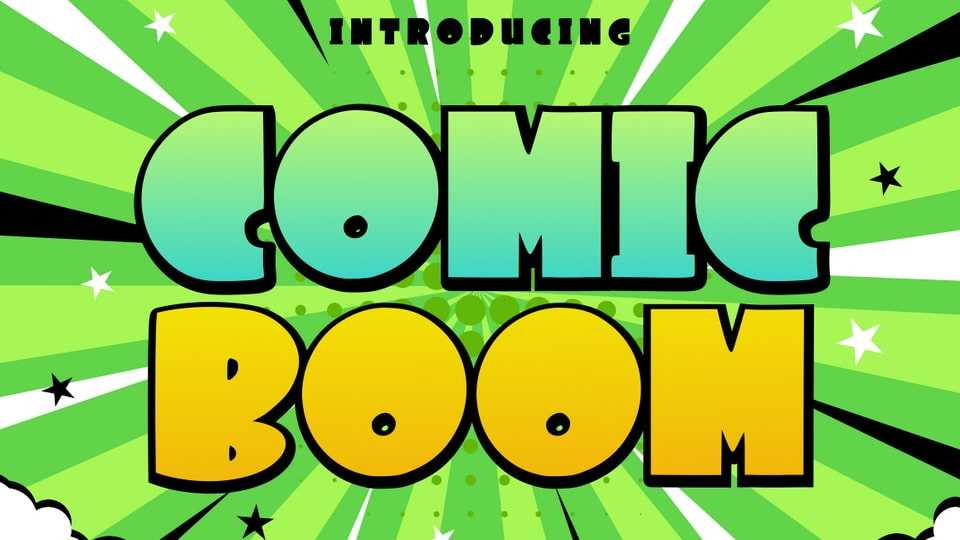
Download Comic Boom font, a cool and fun display typeface for titles or words that need a more dramatic emphasis. Comic Boom font can be used for game titles, comics, or anything that needs a jolly and whimsical accent.
Designer: Rissyletter Studio